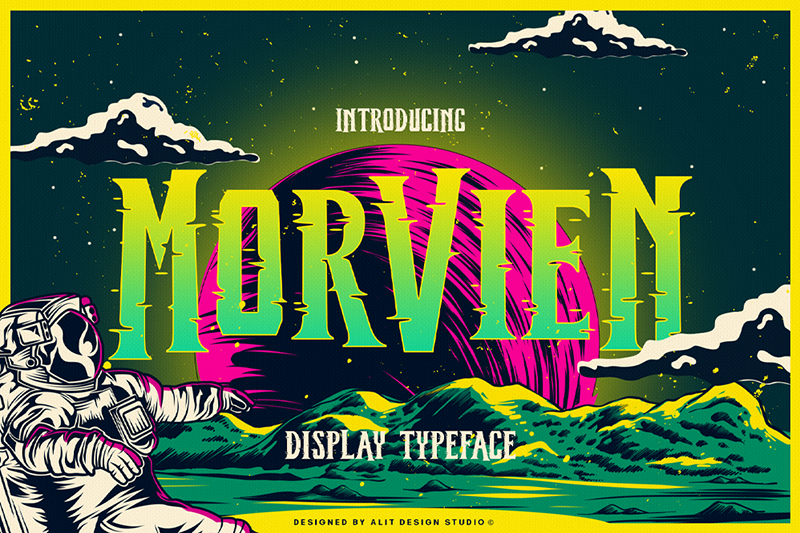
Preview and download Morvien Font. Created by Alit Design in Fancy Distorted styles with Free for personal use license.
Introducing Morvien Typeface - a bold and dynamic display font that brings a unique edge to your creative projects. With its distinctive torn shapes and powerful design, Morvien Typeface is the perfect choice for film titles, game interfaces, comic book lettering, superhero themes, and music posters. This font is not just a typeface; it's an artistic statement that adds a touch of drama and excitement to your visual creations. This is font Demo just for personal use, Not permitted for commercial use. The donation is very appreciated. Please check here for more info about the license: https://alitdesign.net/license/ DOWNLOAD FULL VERSION AND FOR COMMERCIAL USE: https://alitdesign.net/product/morvien-typeface/ Creative Market: https://creativemarket.com/account/dashboard/products visit my website for full version and commercial use: https://alitdesign.net/ follow my Instagram to update my portfolio: https://www.instagram.com/alitdesign_studio/ Email : info@alitdesign.net |